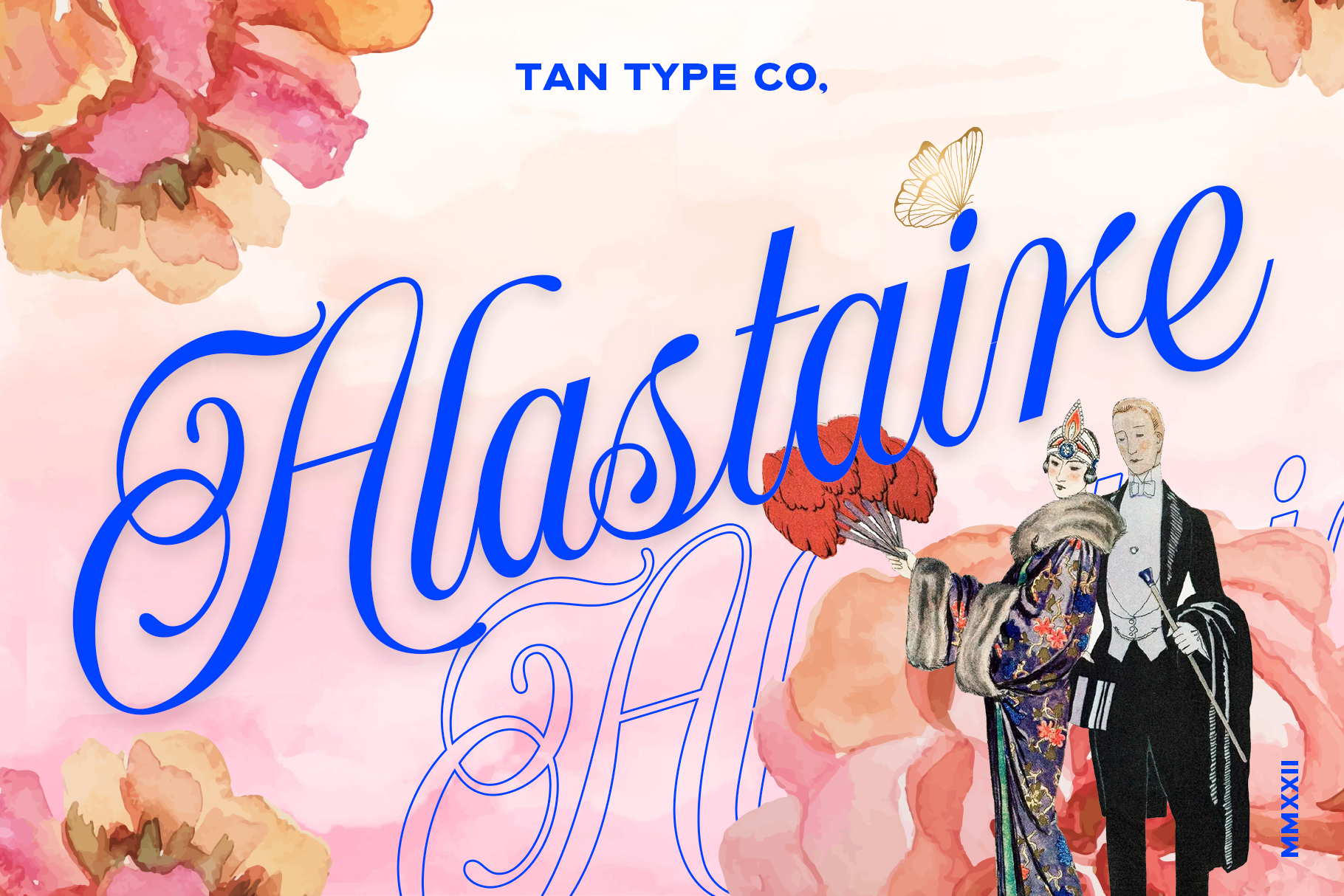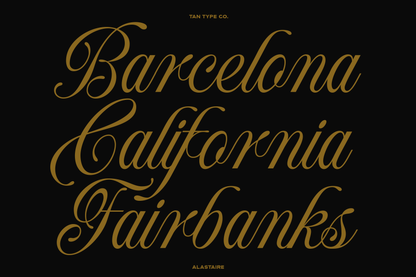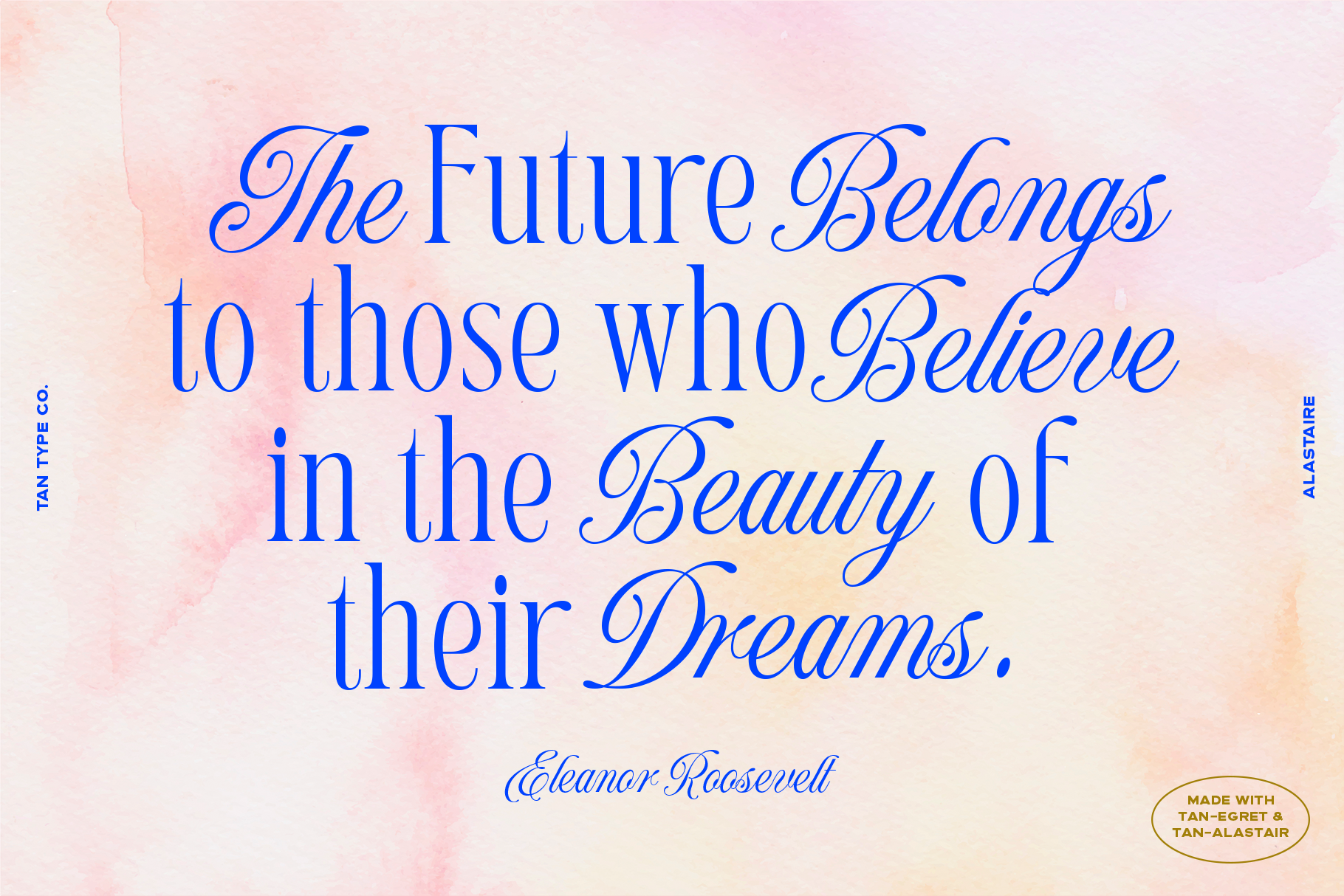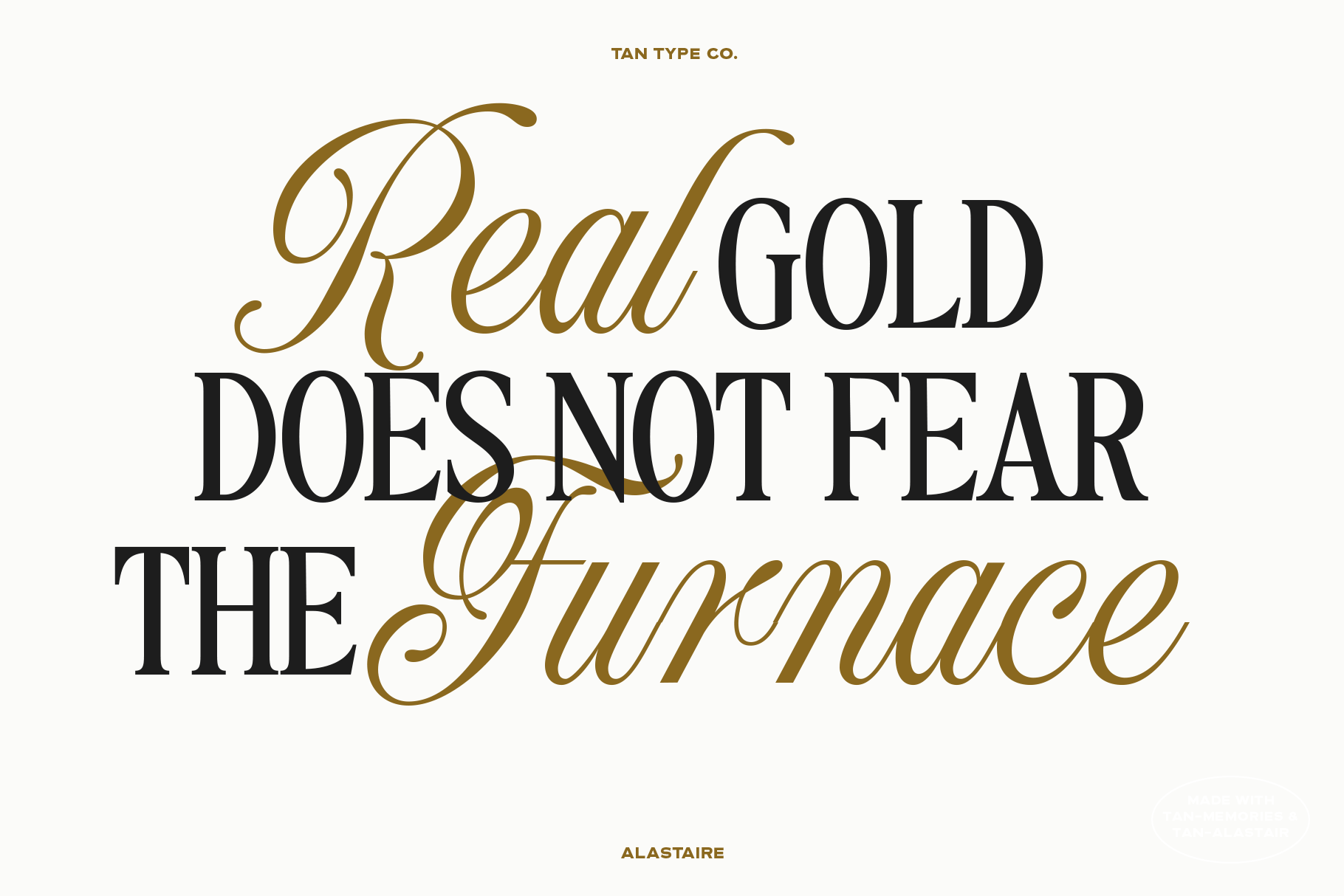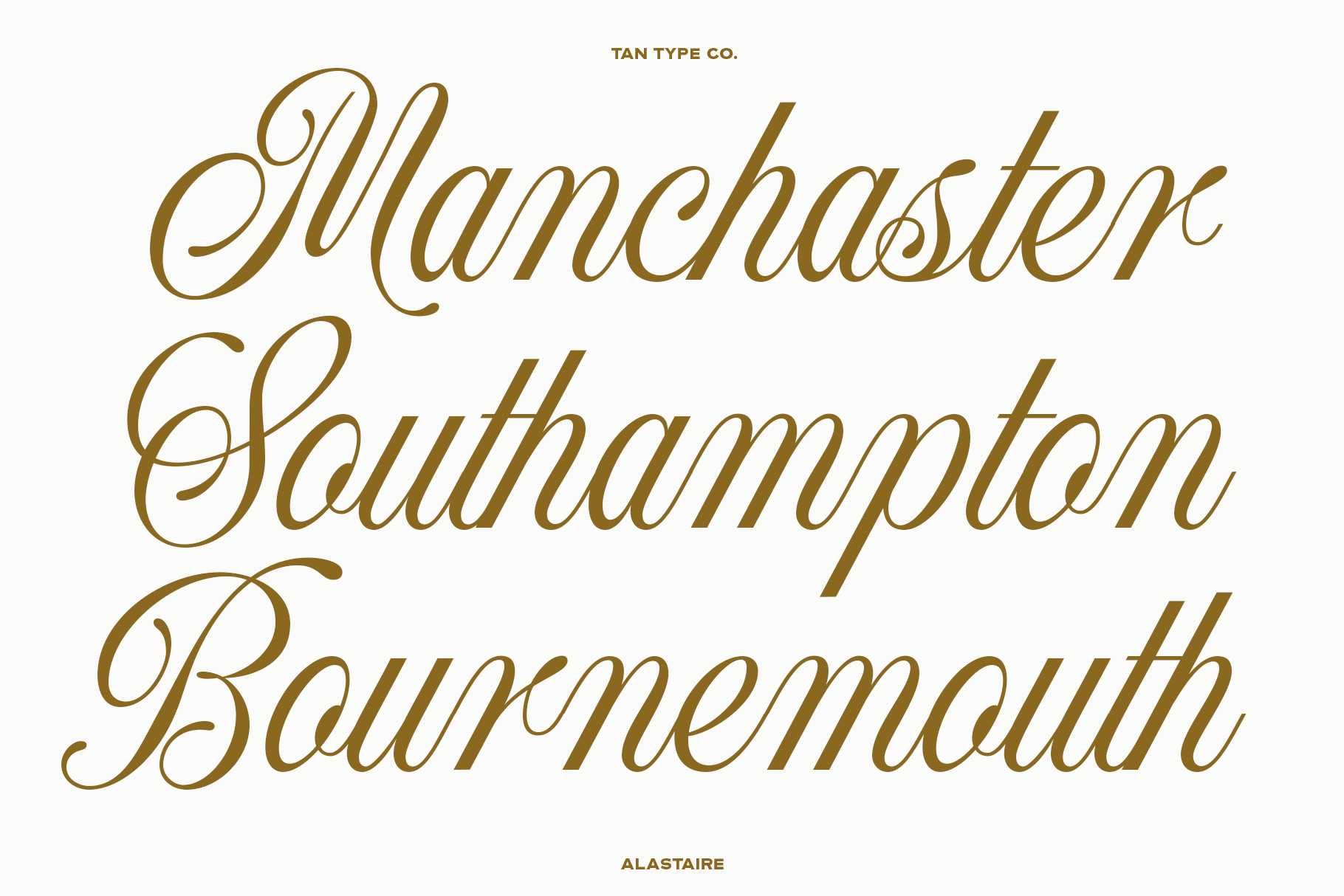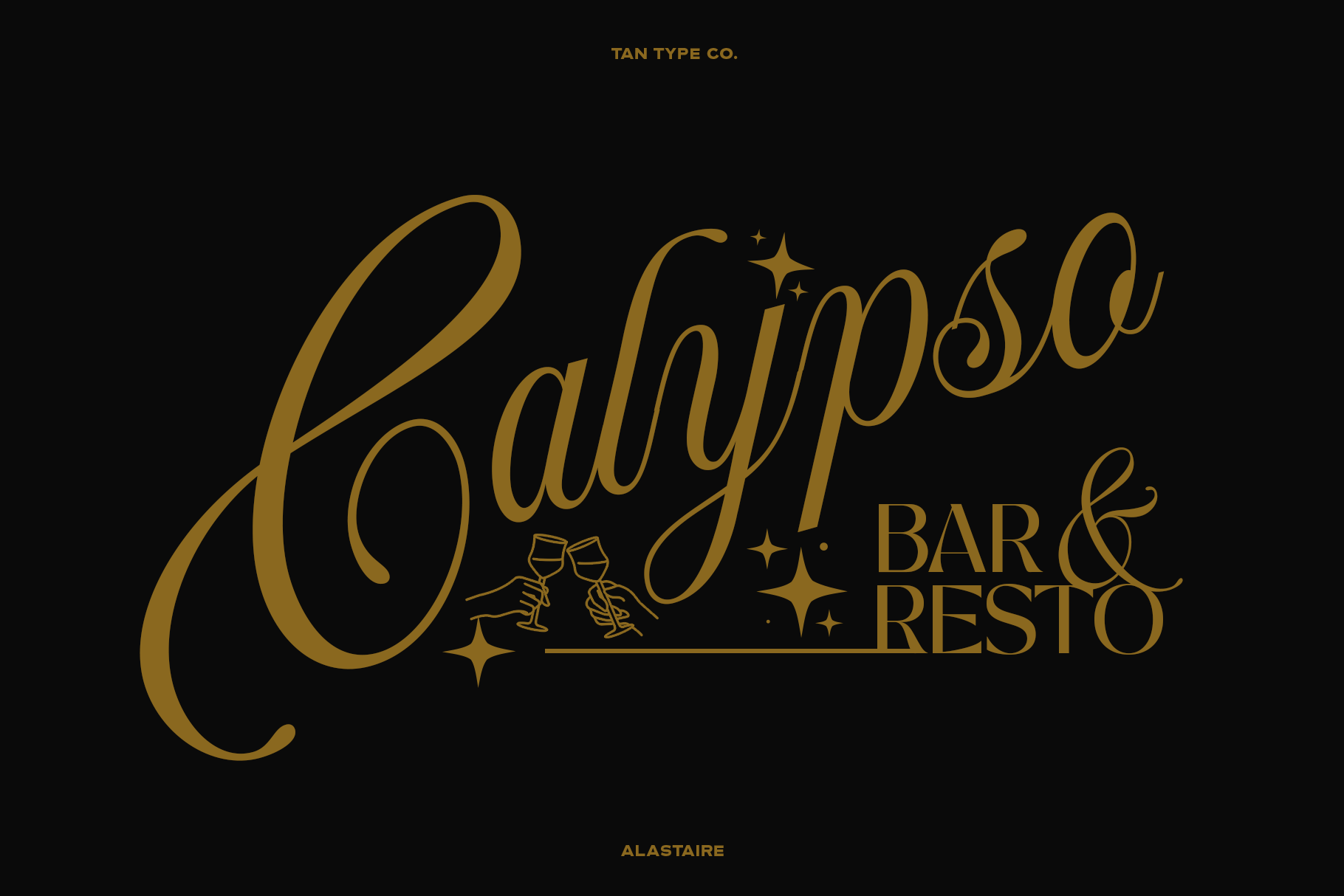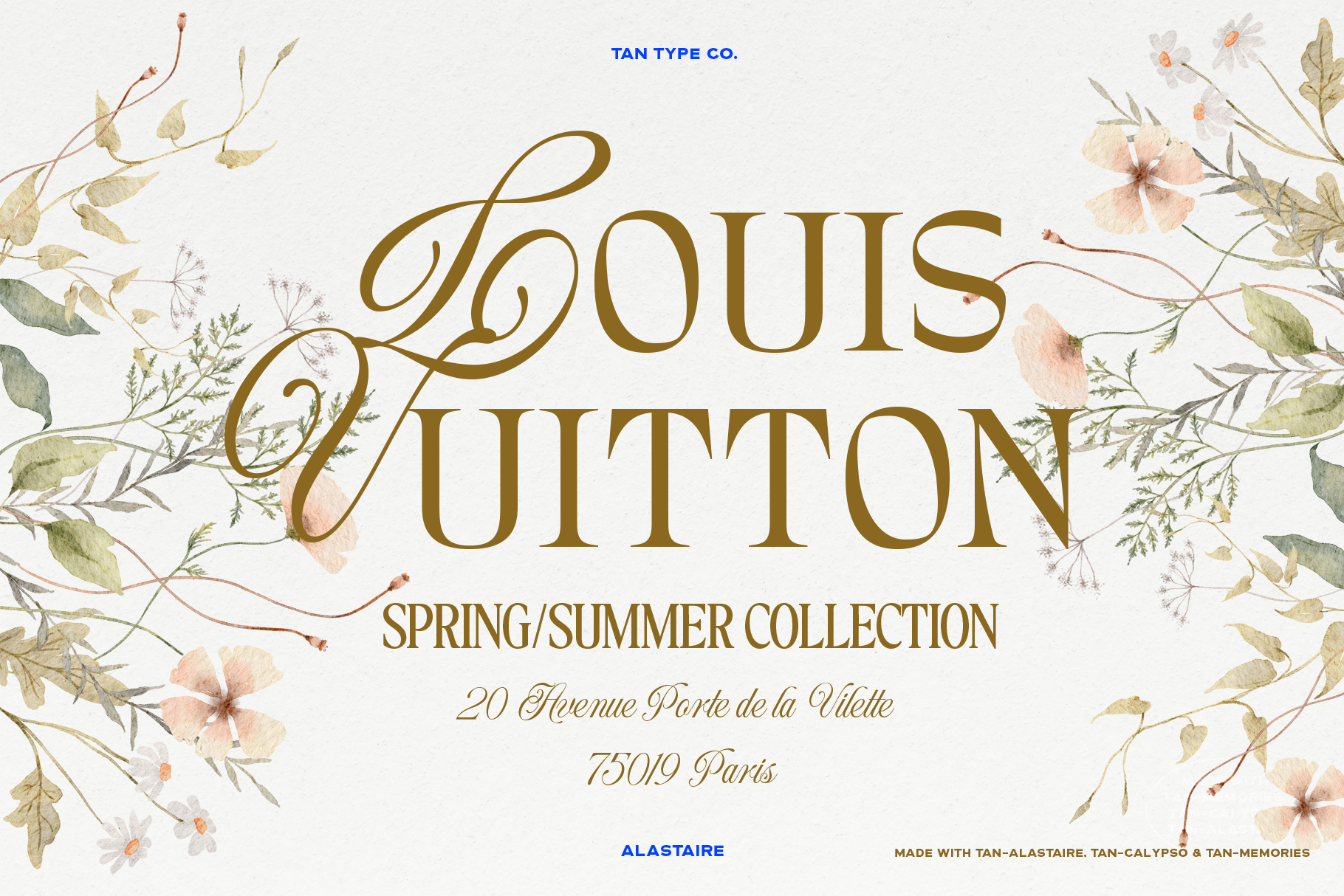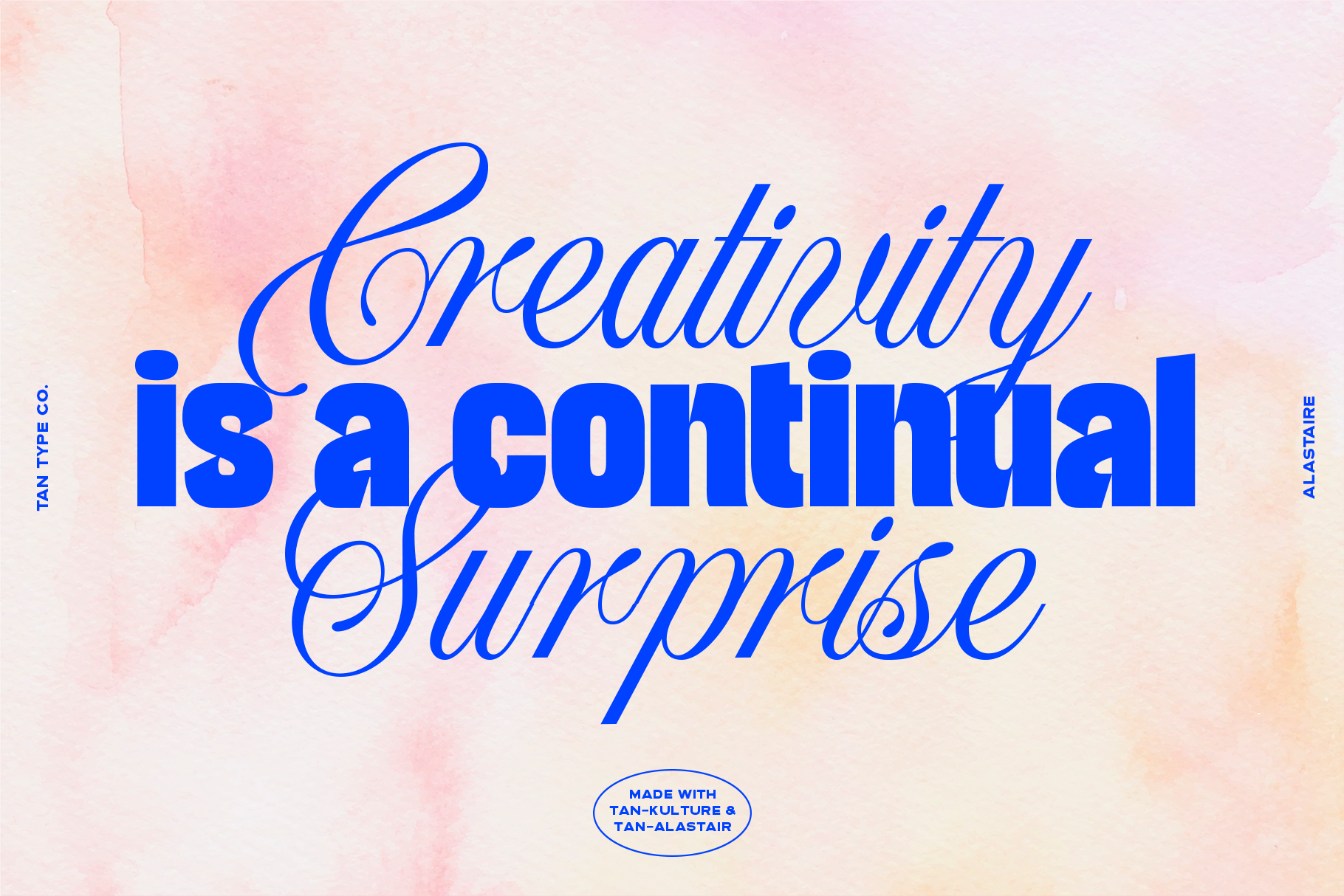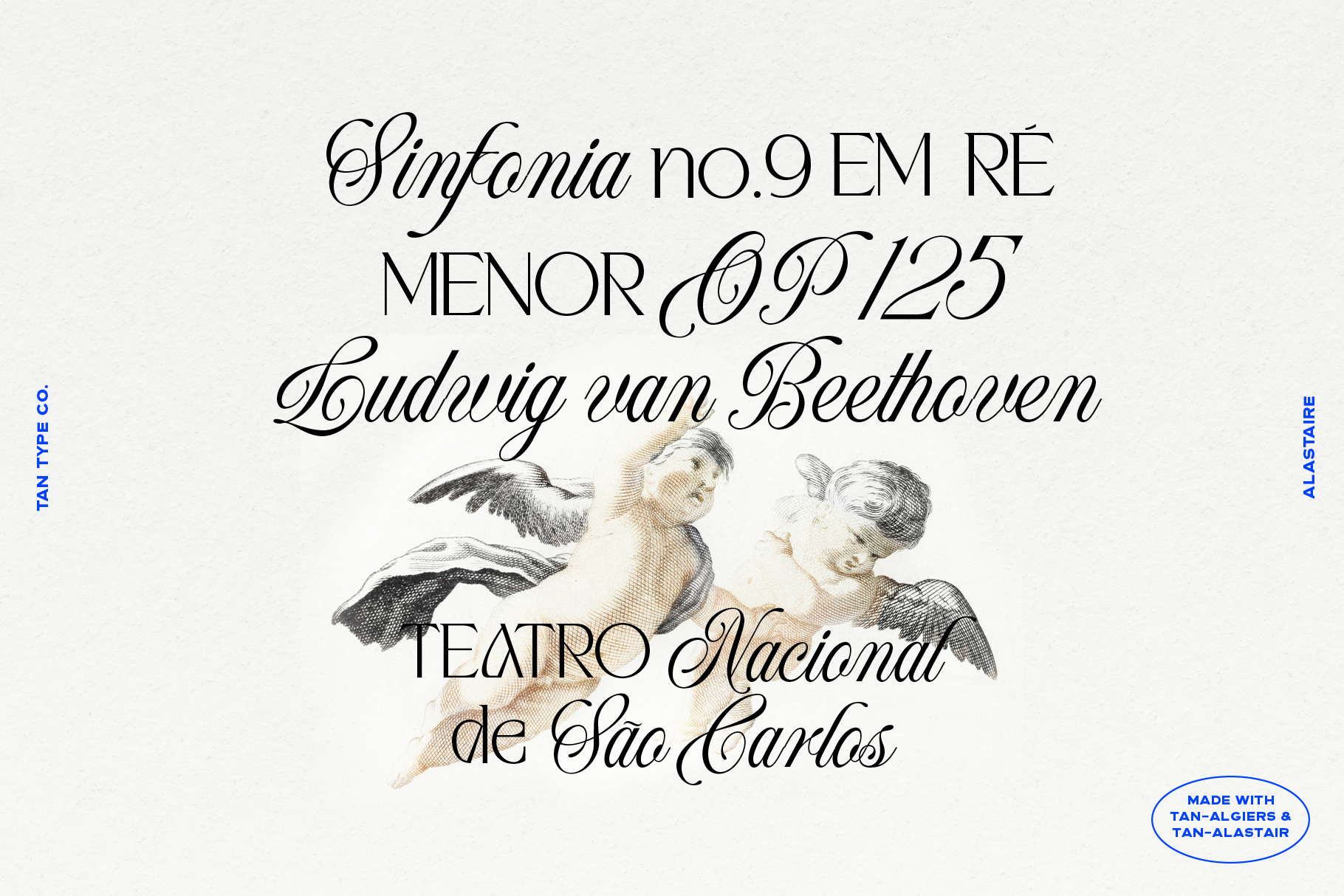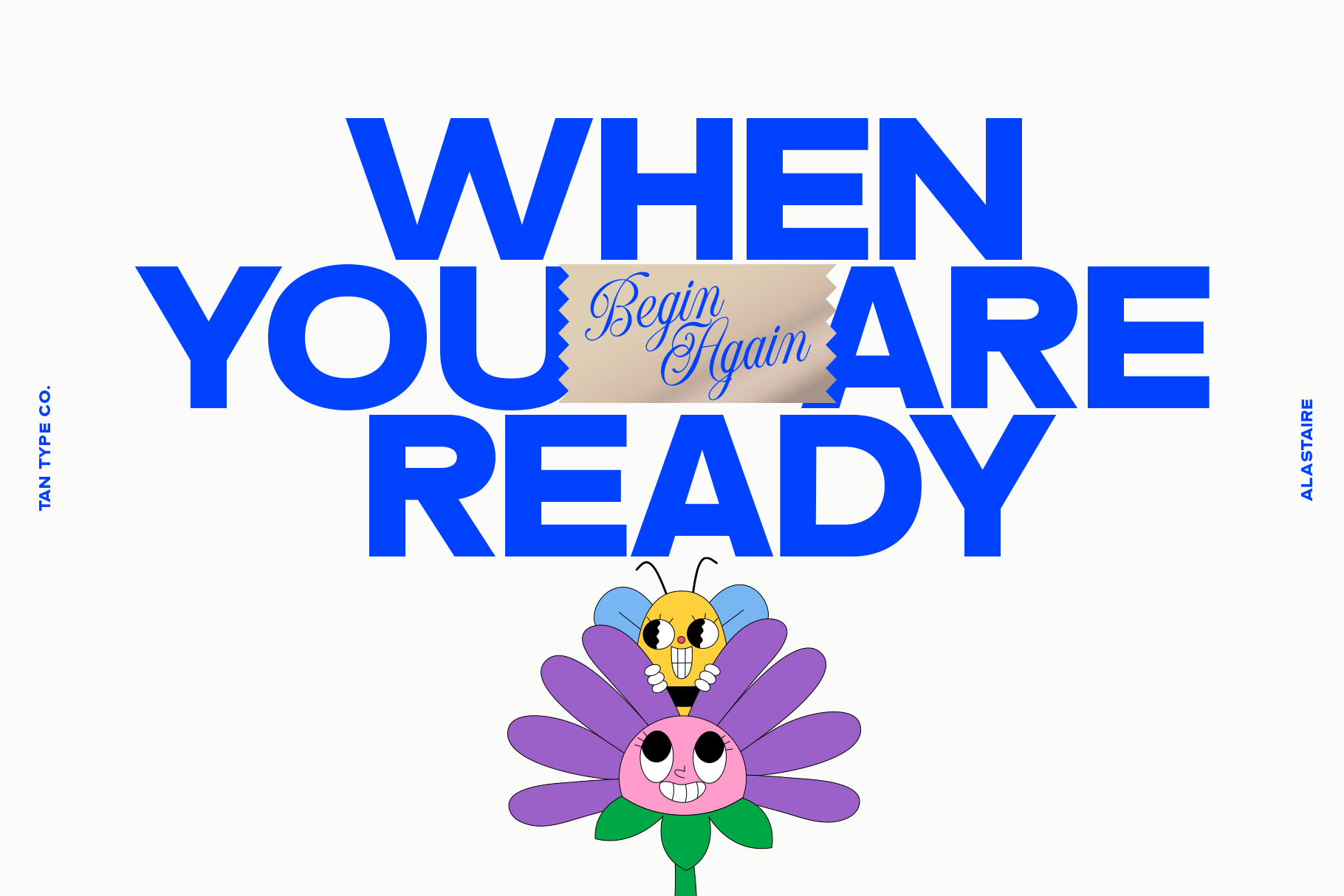
ALASTAIRE is an elegant and glamorous script typeface with vintage flair and graceful movement. Its sweeping curves and high-contrast strokes evoke the sophistication of Art Deco and Old Hollywood, blending ornate details with smooth, flowing rhythm for a timeless and captivating typographic presence.